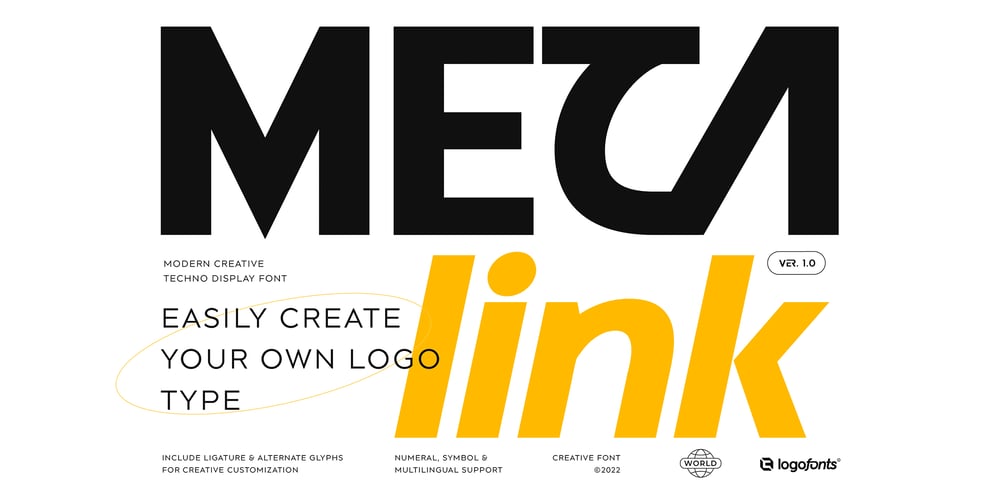
Meta Link Font Family was designed by Anna Safitri and published by Logofonts. Meta Link contains 8 styles and family package options. Meta Link is Sans Serif inspired by future techno and sport great for product logo, poster, headline, card logo, web, magazine, packaging, stationery and much more. Easily creates your own logo types with font. Meta Link have 4 weight fonts with italic style also has an Open Type feature to access a large selection of unique alternative letters and many ligatures to make it easier for you to create.Meta Link can be accessed perfectly on design applications such as Adobe Illustrator, Adobe Photoshop, Corel Draw, Affinity Designer but does not rule out the possibility that it can also be accessed using web-based applications such as kittl, canva, artboard studio and others.